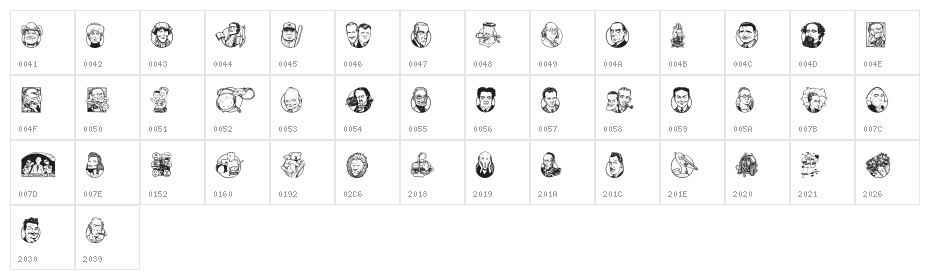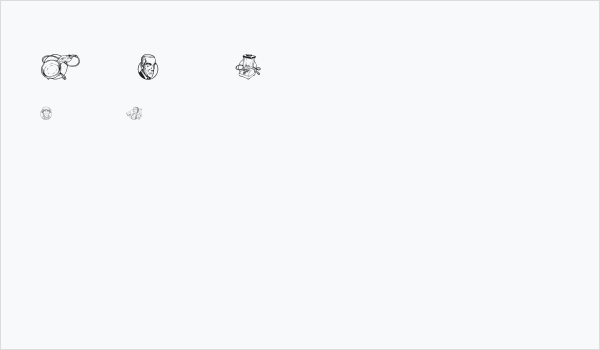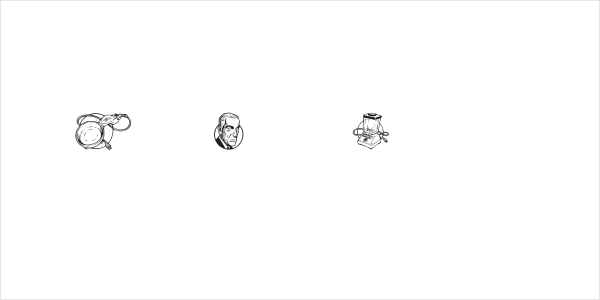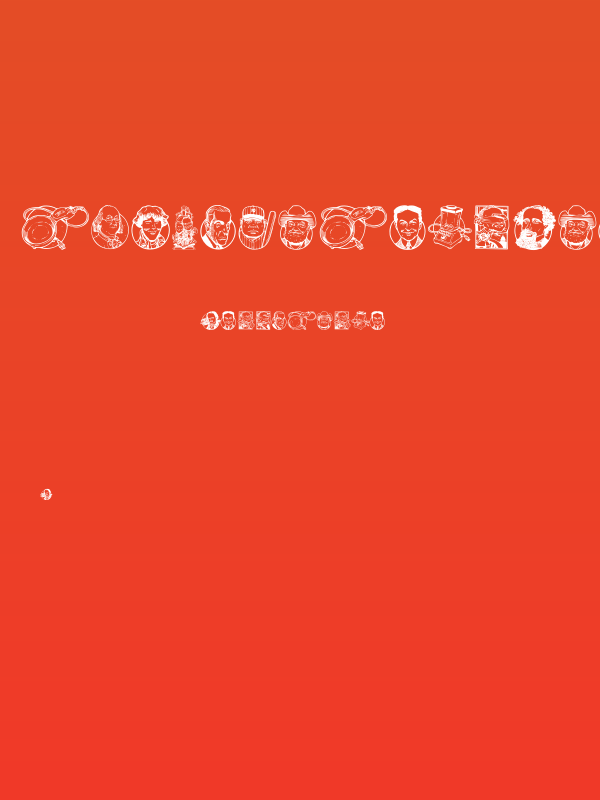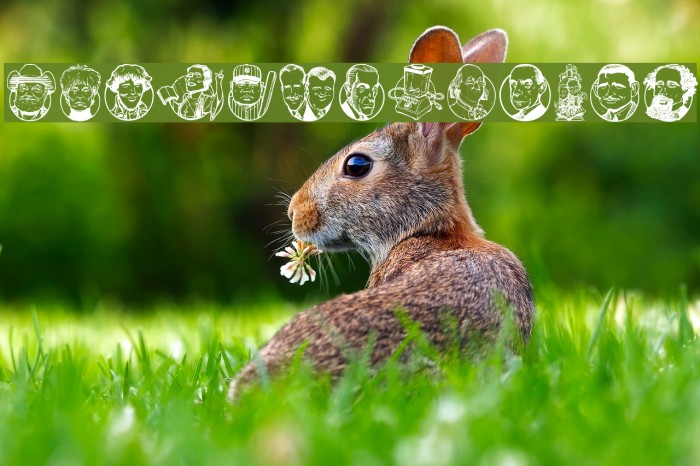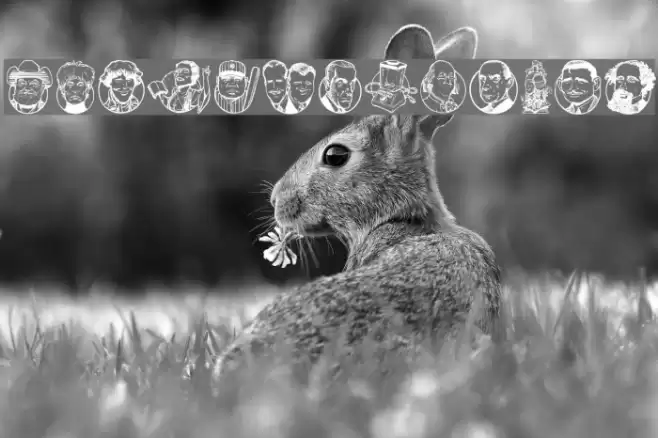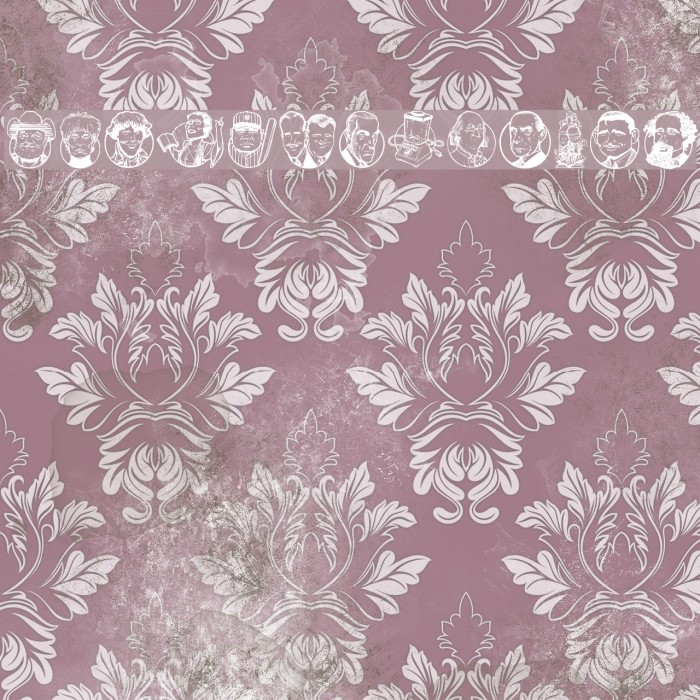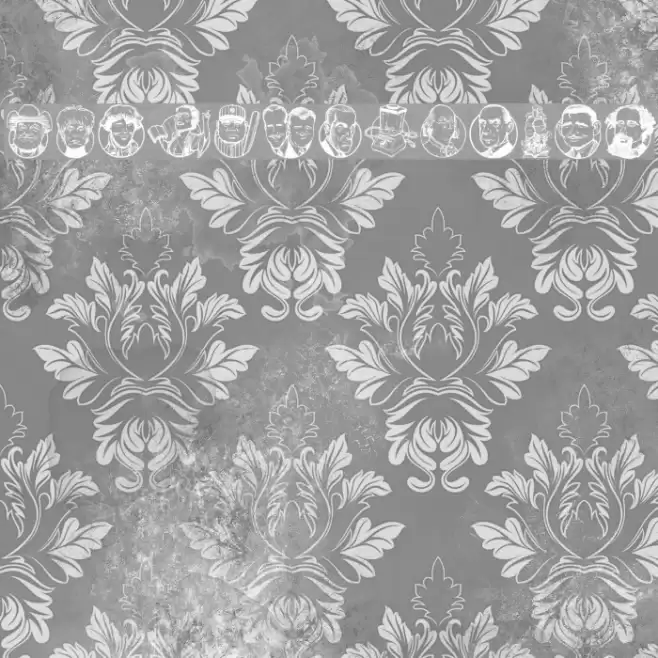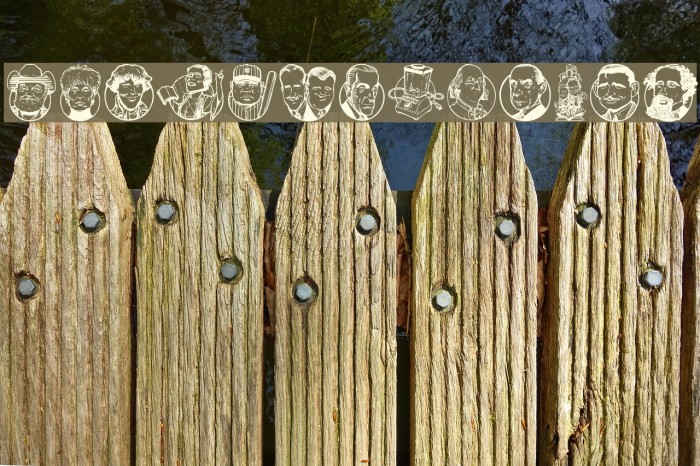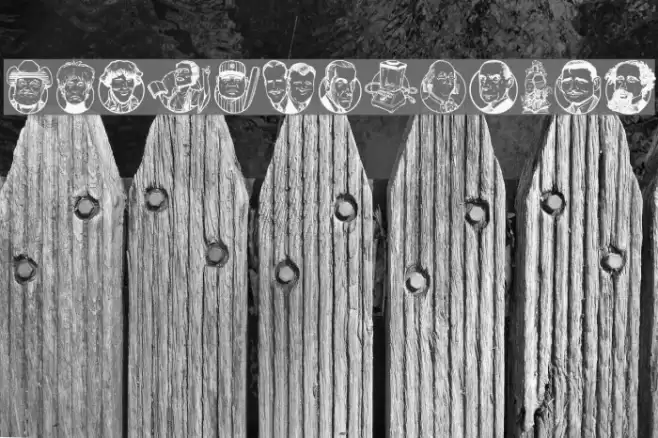
RickGearyHomage Font
RickGearyHomage Description
A decorative font composed of detailed, hand-drawn caricature portraits within circular or rectangular frames, each representing a different character or figure, with high-contrast black and white linework and expressive facial features.
| Overall Style | Decorative, Hand-drawn, Comic-inspired |
| Use Case | Logos, Headlines, Posters, Themed graphics |
| Proposed Projects | Posters, comic book titles, themed event invitations, novelty projects, editorial illustrations. |